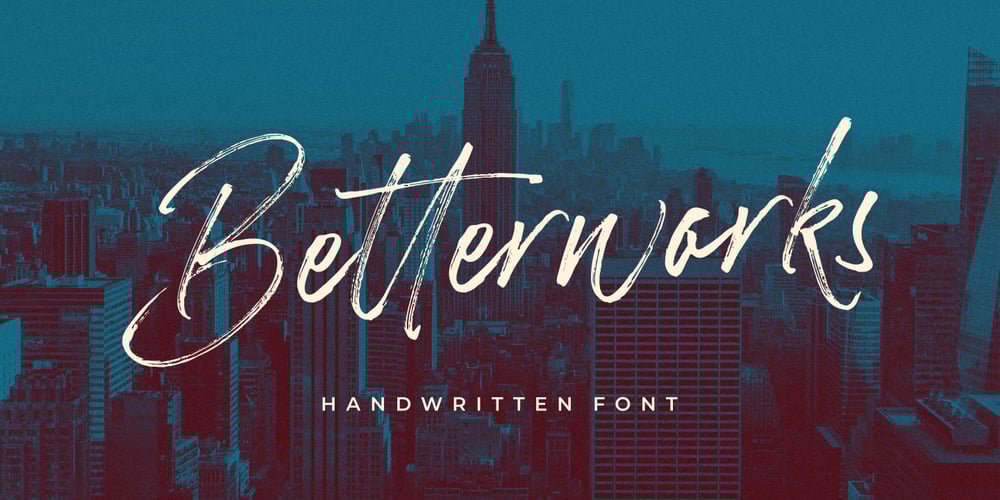
Betterworks Font Family was designed by Annas Alam Yahya and published by Letteralle. Betterworks contains 2 styles and family package options. Betterworks is a modern and charming hand-brushed font. Betterworks has a detailed brush that makes a natural impression. Betterworks comes with alternates (uppercase and lowercase). You can access it through the Opentype feature or by installing the alternates font file and also Swashes which you can access in separate fonts by typing A-I. This Font perfect for branding, advertising design, T-shirts, Websites, magazines, packaging, merchandise, and many others. Enjoy the font and feel free to comment and feedback. Thank you!